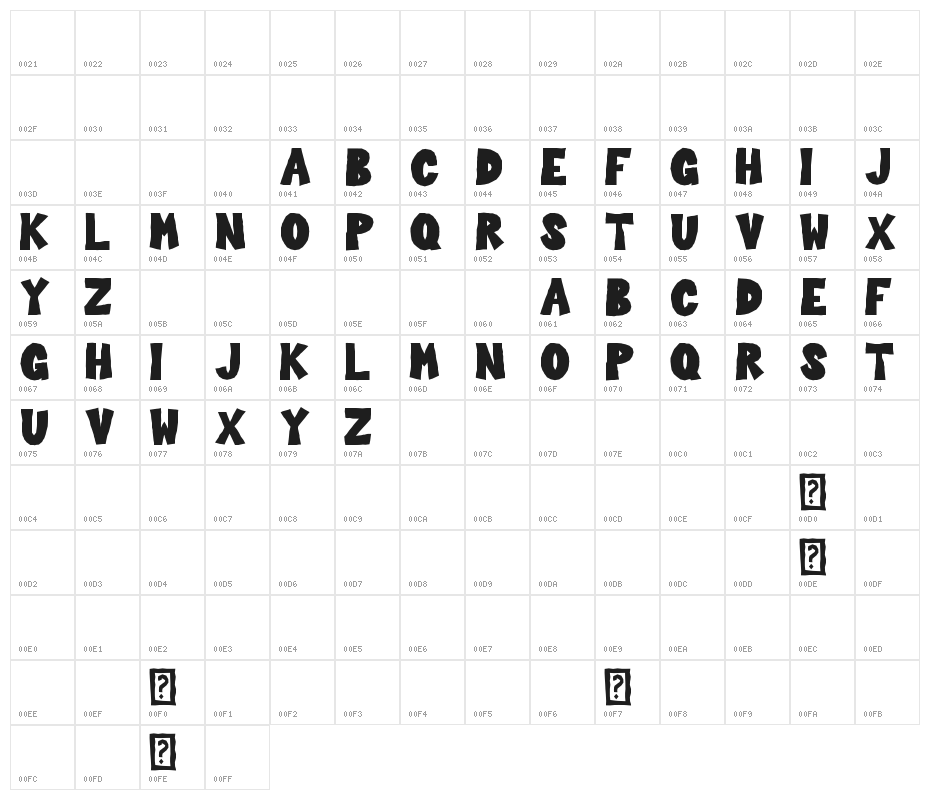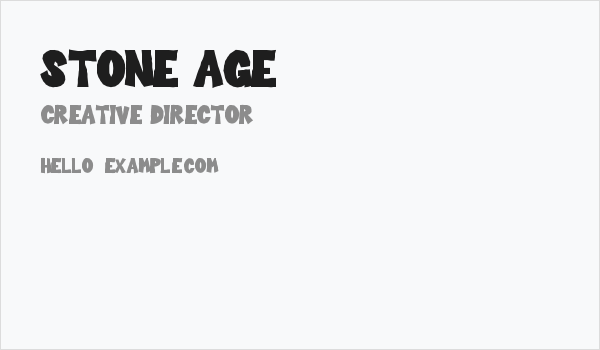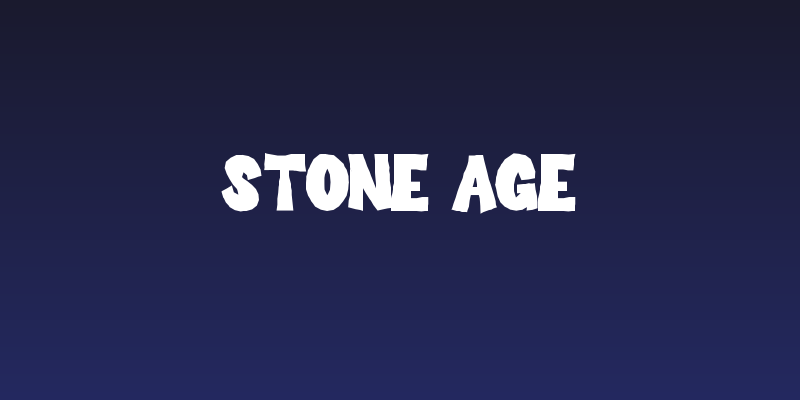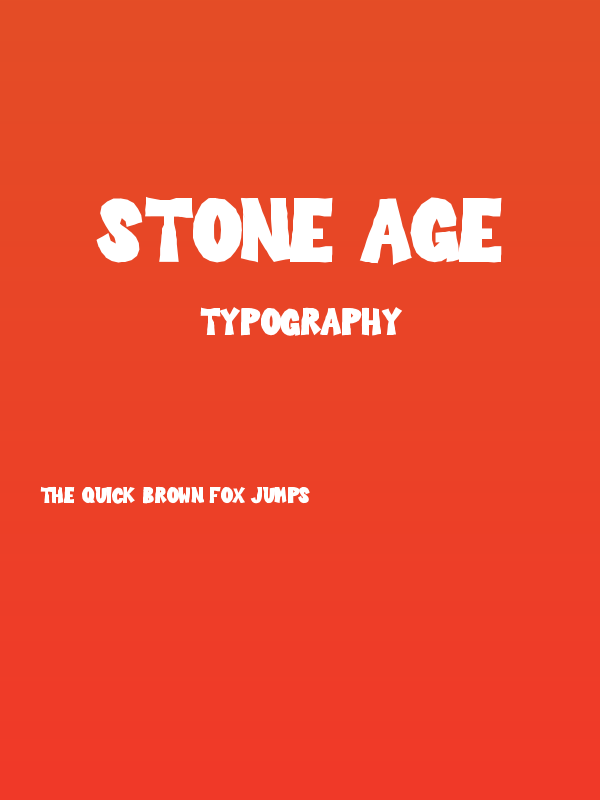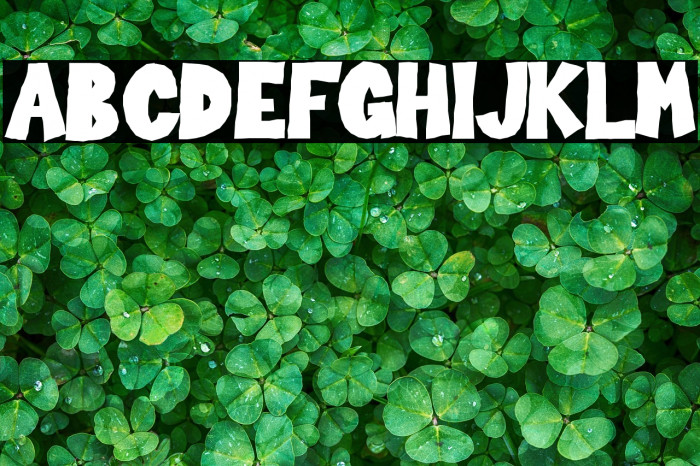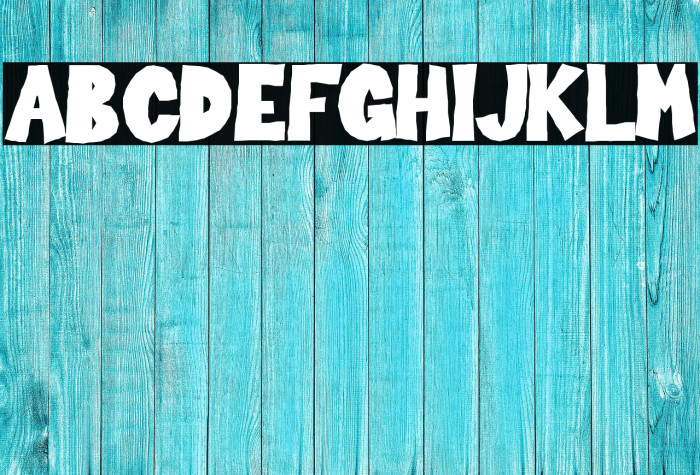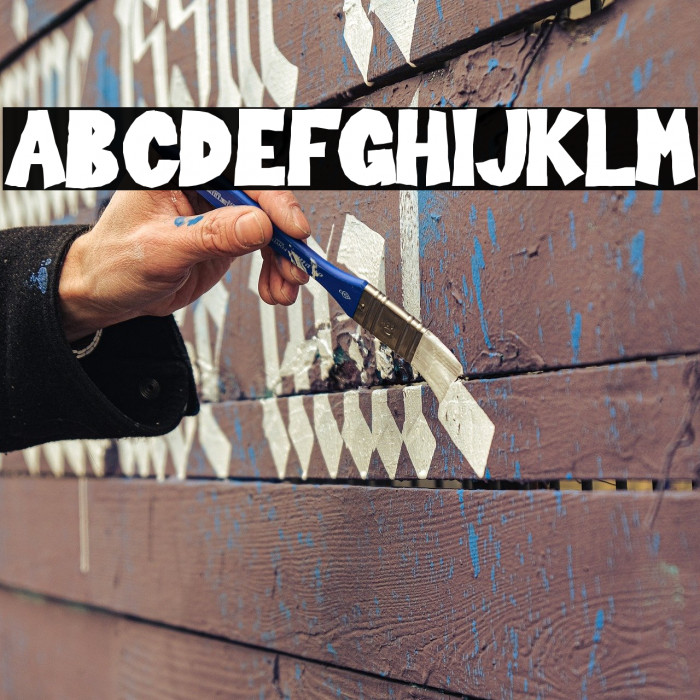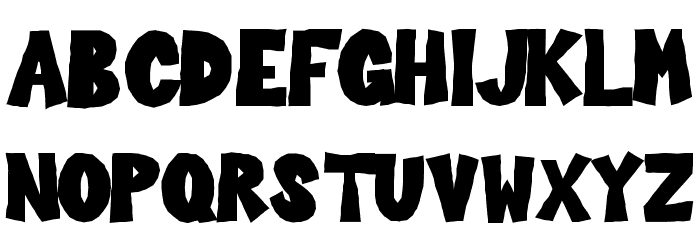
Stone Age Font
Stone Age Description
This font features a bold and rugged style, reminiscent of ancient stone carvings. The characters have a rough, uneven texture, giving them a hand-chiseled appearance. The uppercase letters are prominent and impactful, with each character exhibiting unique, irregular edges that add to the primitive aesthetic. The font's boldness and distinct style make it stand out, ideal for projects that require a strong, historical, or adventurous theme. Its design is both playful and robust, capturing the essence of a bygone era with a modern twist.
| Proposed Projects | Ideal for themed event posters, adventure games, historical documentaries, or any project needing a primitive, bold aesthetic. |